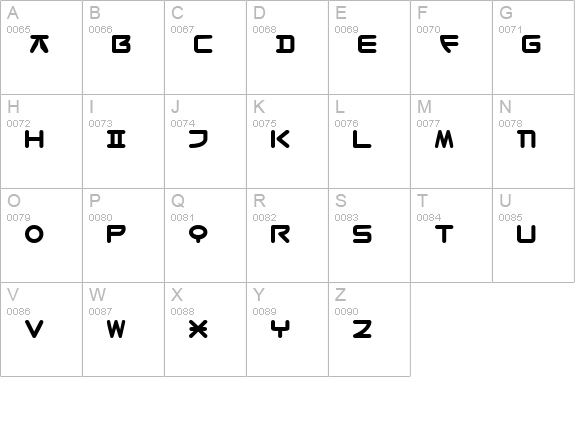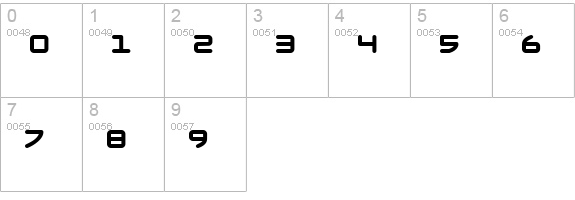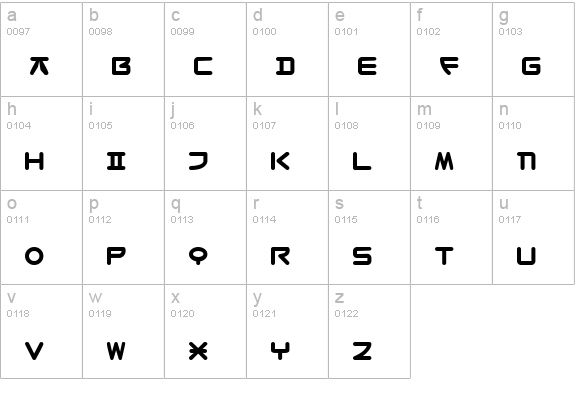
SeoulStacking Alt font is a modern and stylish typeface that exudes sophistication and creativity. With its unique stacked design, this font adds a touch of elegance to any project. Perfect for branding, logos, headlines, and more, SeoulStacking Alt font is sure to make a statement. The best part? SeoulStacking Alt font is completely free to download at FontsMarket.com. You can easily enhance your designs with this stunning font without breaking the bank. Don't miss out on the opportunity to elevate your projects with the sleek and professional look of SeoulStacking Alt font. Download it today and let your creativity soar!